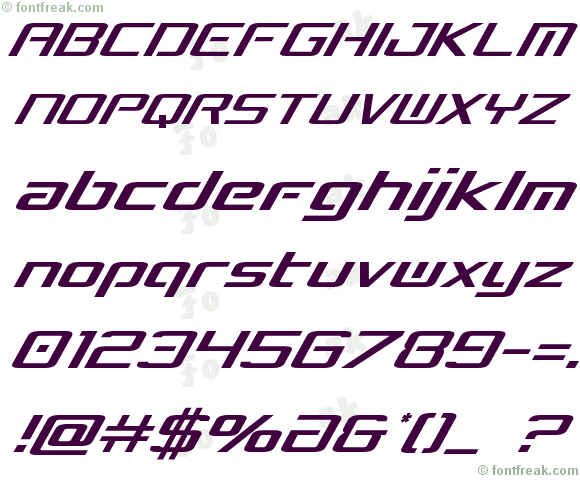
Concielian Break Italic
About Concielian Break Italic
Concielian Break Italic, designed by Daniel Zadorozny, is a striking display font that falls under the category of decorative typefaces. With its unique italicized style, this font captures attention through its semi-condensed, expanded forms, creating a dynamic visual experience. The stroke weight is moderately bold, offering a confident presence while maintaining a balanced contrast that enhances readability. Its left-aligned slant adds an element of movement, making it an excellent choice for projects that aim to convey energy and innovation.
This font is particularly well-suited for a variety of creative applications. Its bold and stylish design makes it ideal for movie posters, where it can draw viewers in with its modern flair. Additionally, Concielian Break Italic works beautifully for branding in the fashion industry, helping to create a memorable logo that resonates with trend-conscious audiences. It can also elevate restaurant menus, adding a touch of sophistication while remaining legible. In the realm of digital content, this typeface is a fantastic choice for social media graphics, ensuring that posts stand out in crowded feeds.
Target audiences for Concielian Break Italic include graphic designers looking to enhance their creative projects, small business owners seeking distinctive branding options, and content creators aiming to make a visual impact across various platforms. The versatility and aesthetic appeal of this font make it a valuable asset for anyone in the creative field.
In conclusion, Concielian Break Italic font free download offers a unique combination of style and functionality. Its eye-catching design and diverse applications make it a standout choice for those looking to infuse their work with personality and flair. With its modern characteristics, this font is sure to leave a lasting impression.